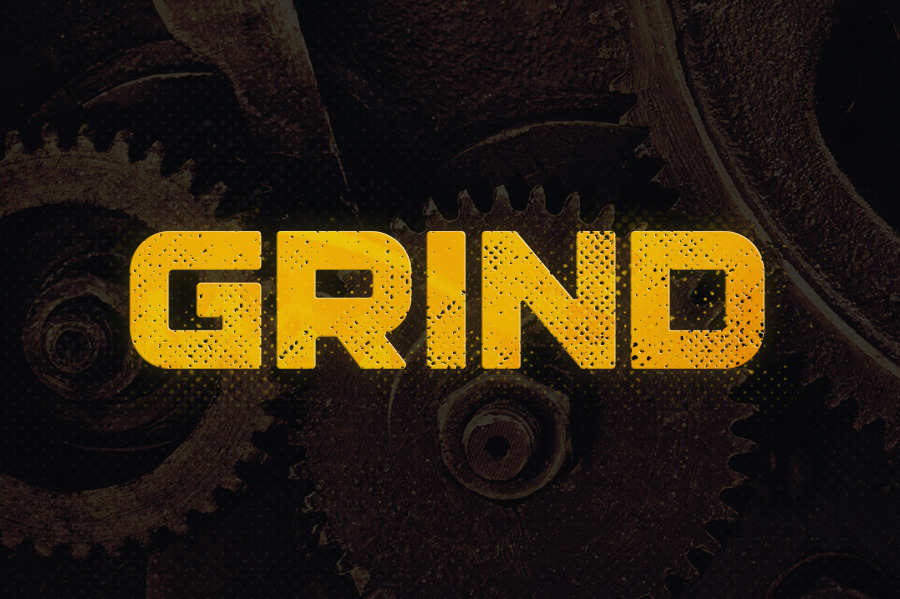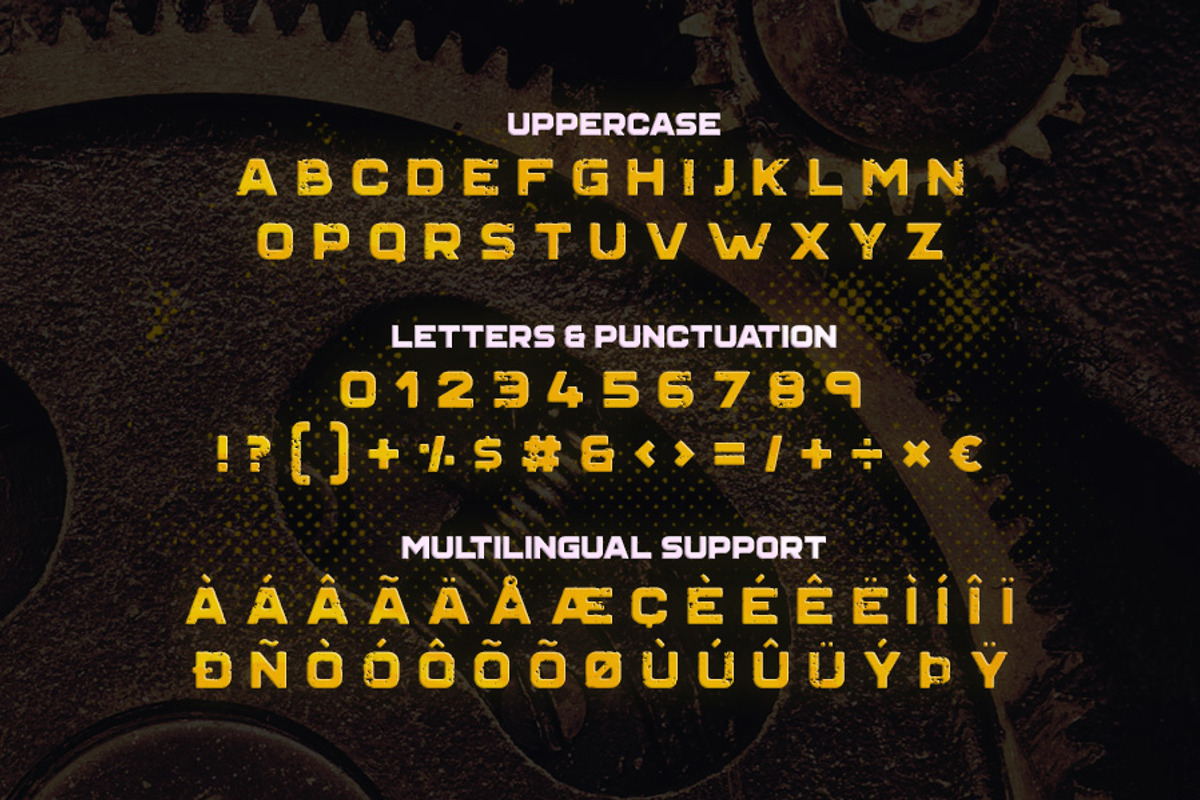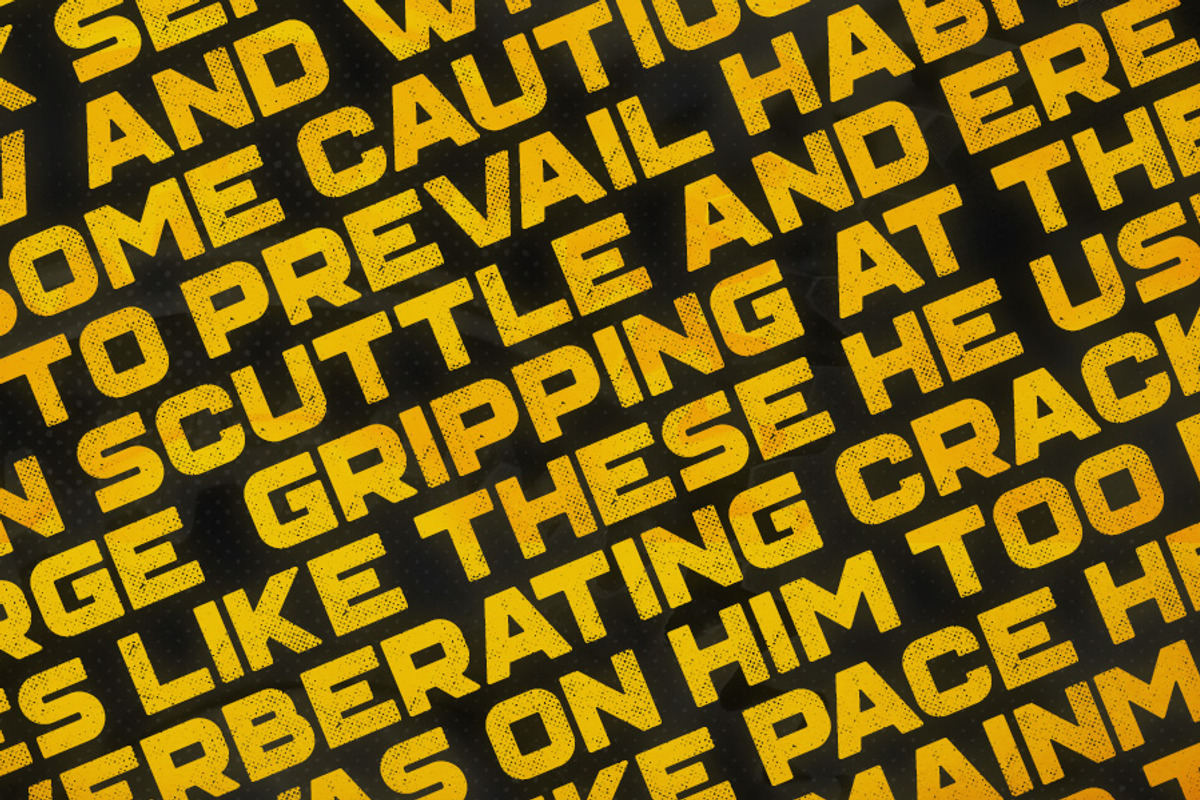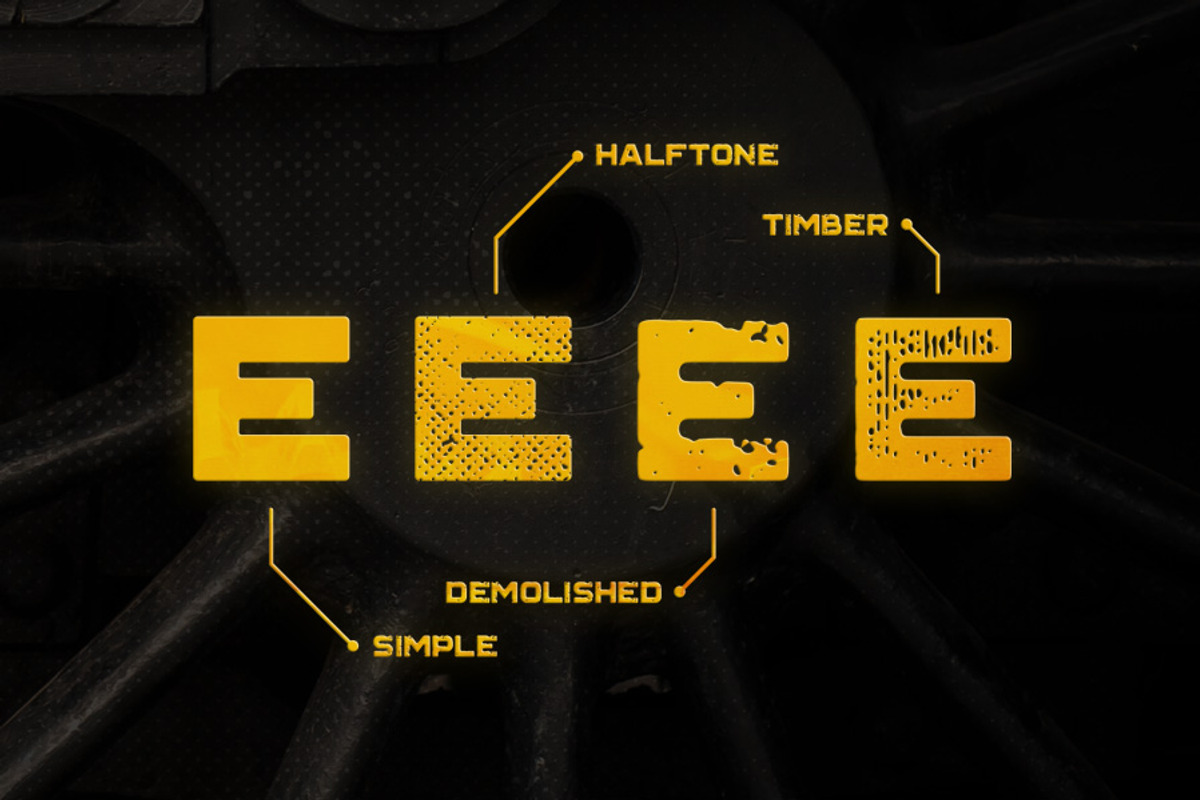
Grind Typeface
Grind is a big and bold display typeface that oozes strength and toughness.
Grind features simple, demolished, halftone and timber styles. It also comes with multilingual support and includes letters, numbers and punctuation. Let me know if you have any questions!